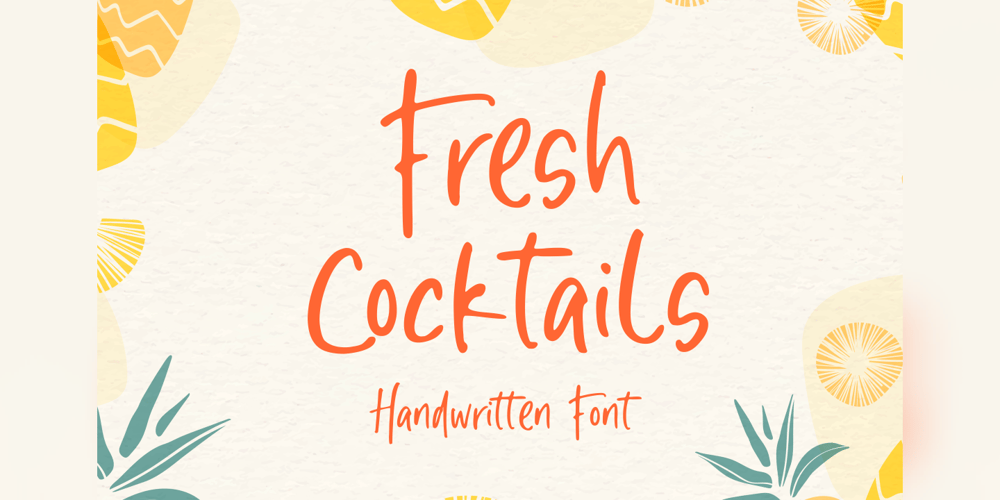
Fresh Cocktails Font Family was designed by Muhamad Yusron Billah and published by Sronstudio. Fresh Cocktails contains 1 styles and family package options. Fresh Cocktails is a handwritten font, this font Is perfect for lproduct packaging, product designs, label, photography, watermark, special events or anything.Fresh Cocktails comes with uppercase and lowercase letters, multilingual symbols, numerals, punctuation.If you have any questions please don’t hesitate to drop me a message :)Thank You, Sronstudio